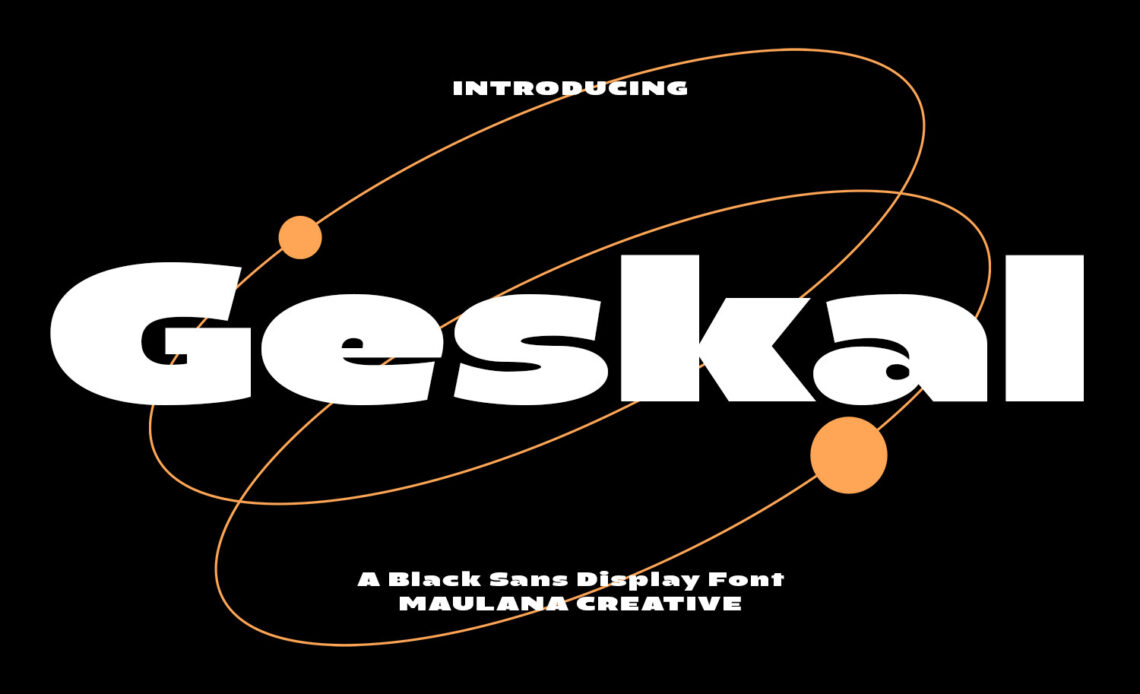
Behold Geskal, a font that embodies the essence of strength and boldness, designed to elevate your creative projects to new heights. This display font exudes a sense of unwavering confidence, making it the perfect choice for foam letters that demand attention. Whether you're crafting signage, branding materials, or social media graphics, Geskal will leave an unforgettable impact, captivating the eyes of your audience.
Unleash your imagination and explore the boundless possibilities Geskal offers. Its wide, strong characters radiate an aura of authority, ensuring your message stands out from the crowd. Whether you seek to convey a sense of power, determination, or resilience, Geskal will amplify your words, leaving a lasting impression.
But Geskal is more than just a visually striking font; it's a versatile tool that adapts seamlessly to a myriad of design styles. Its clean lines and crisp edges blend effortlessly with both modern and traditional aesthetics, making it a timeless choice for any project. From bold headlines to captivating logos, Geskal's versatility knows no bounds.
Join the ranks of creative professionals who have discovered the power of Geskal. Let its unwavering strength and boundless versatility empower your designs, leaving an indelible mark on your audience. Embrace the strength of Geskal and elevate your creativity to new heights.